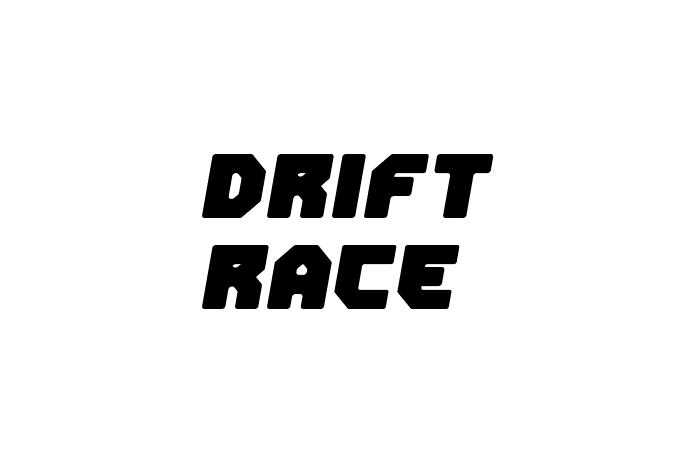
Design System C W01 900R
Introducing the modern Design System C W01 900R Font, is a cool and modern techno looking display Font This font is ideal for writing web designs, business cards, or pretty much anything else that requires a unique touch, this font designed by Ryoichi Tsunekawa is available for free download and personal use.
Font name Design System C W01 900R
Font designer Ryoichi Tsunekawa
Typeface classification Techno